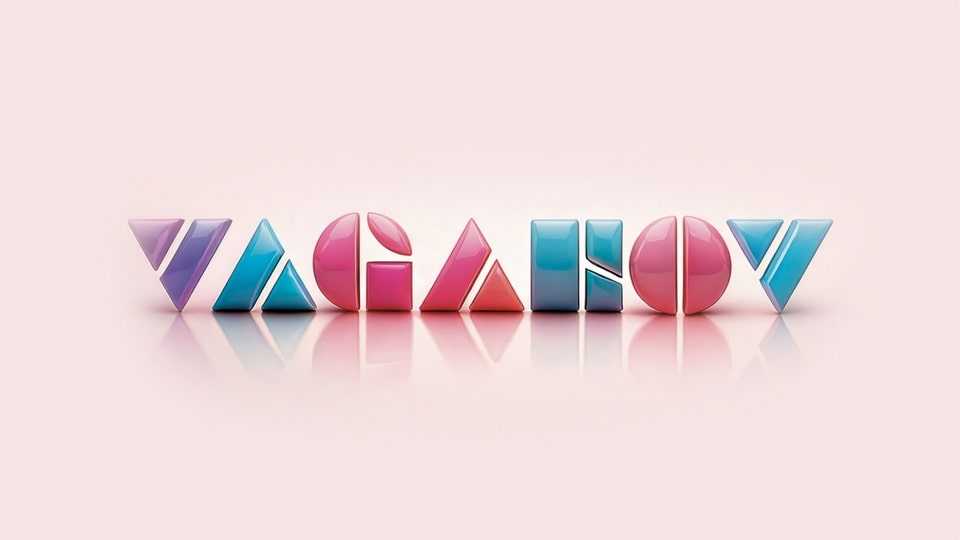
Download Vaganov SP font, a geometric display typeface inspired by the aesthetics of the Russian avant-garde, constructivism, and the typography of the 1920s.
Designer: Sasha Pavljenko